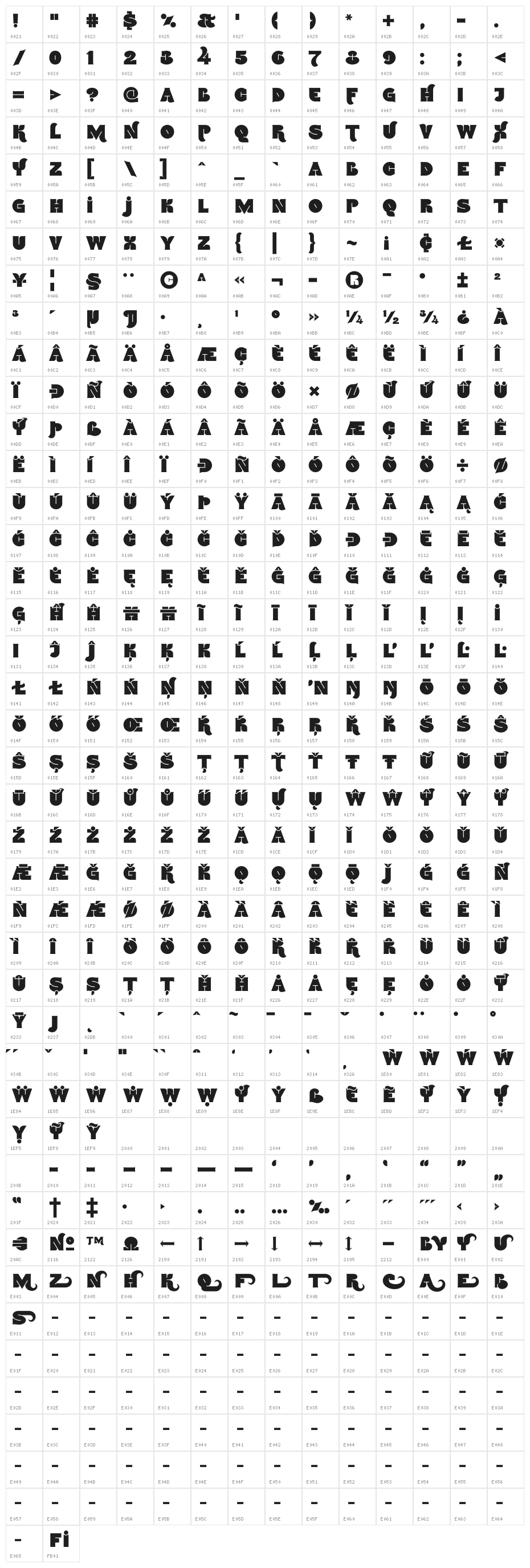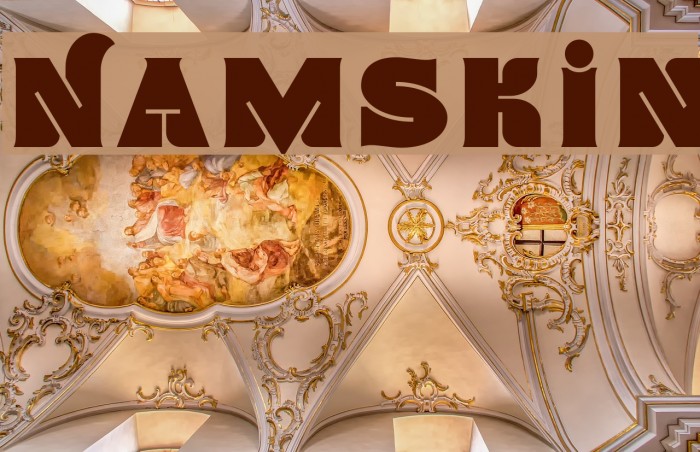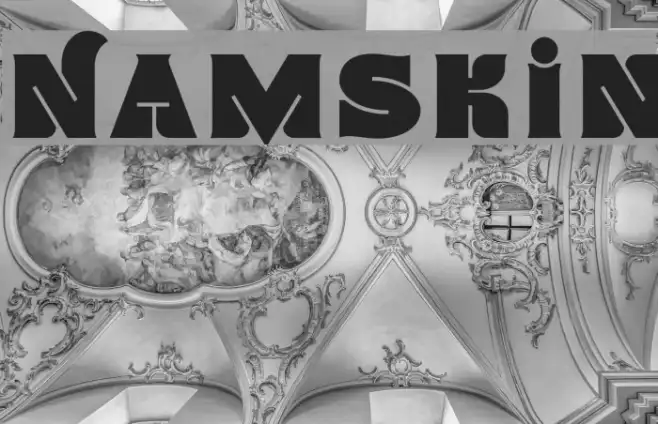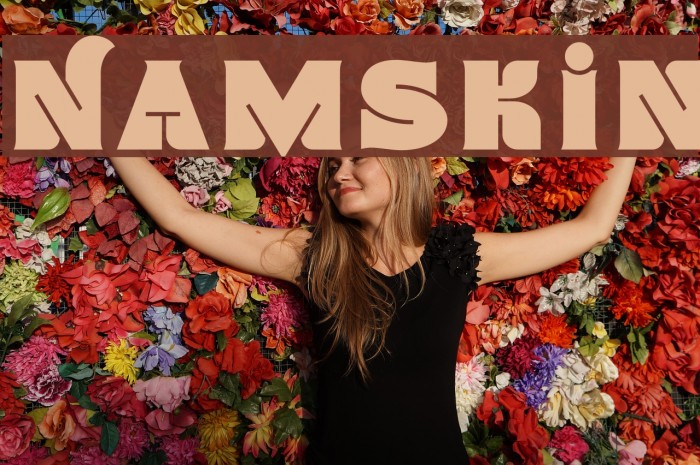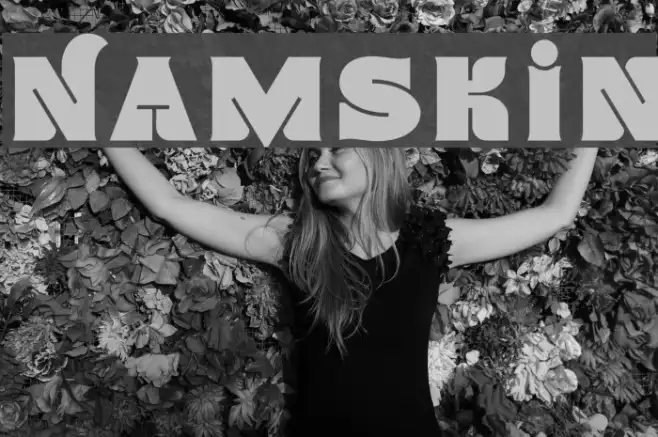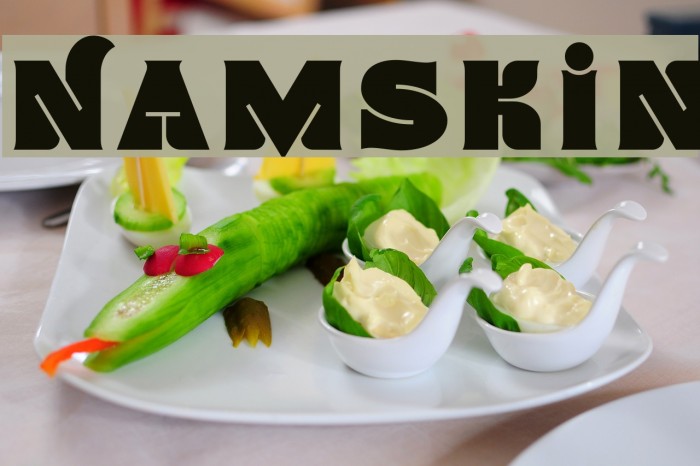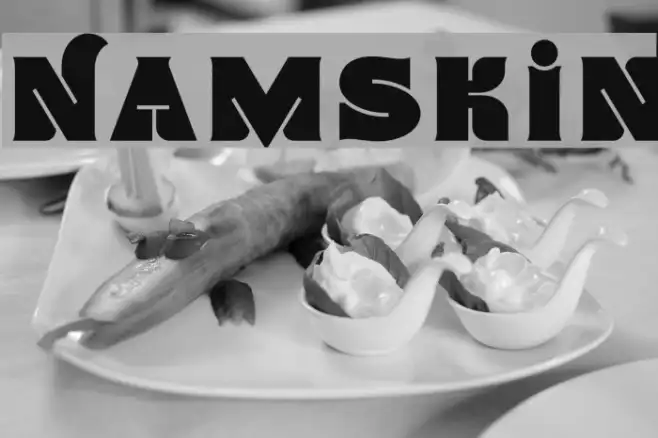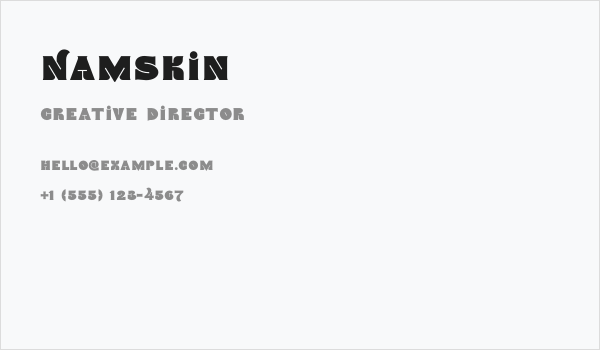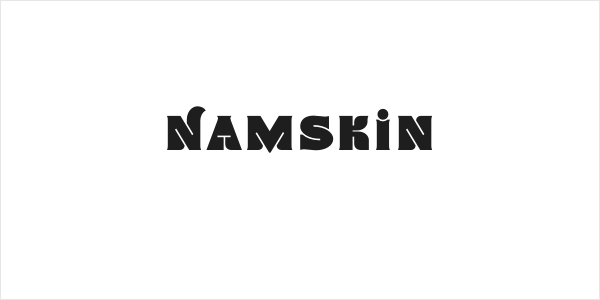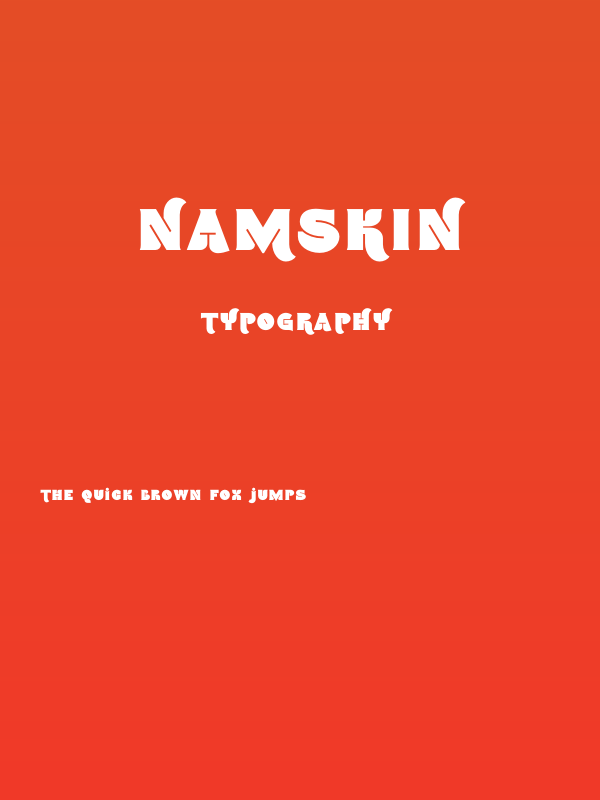
Namskin Font
This font features bold, geometric shapes with a strong presence, characterized by its thick strokes and unique cut-out details. The letters have a modern, industrial feel, with sharp angles and a blocky appearance that makes them stand out. The uppercase and lowercase letters maintain a consistent style, while the numerals and special characters complement the overall design. The font's boldness and distinctiveness make it ideal for attention-grabbing headlines and impactful designs.
| Proposed Projects | Ideal for branding, posters, and any design that requires a strong visual impact. |